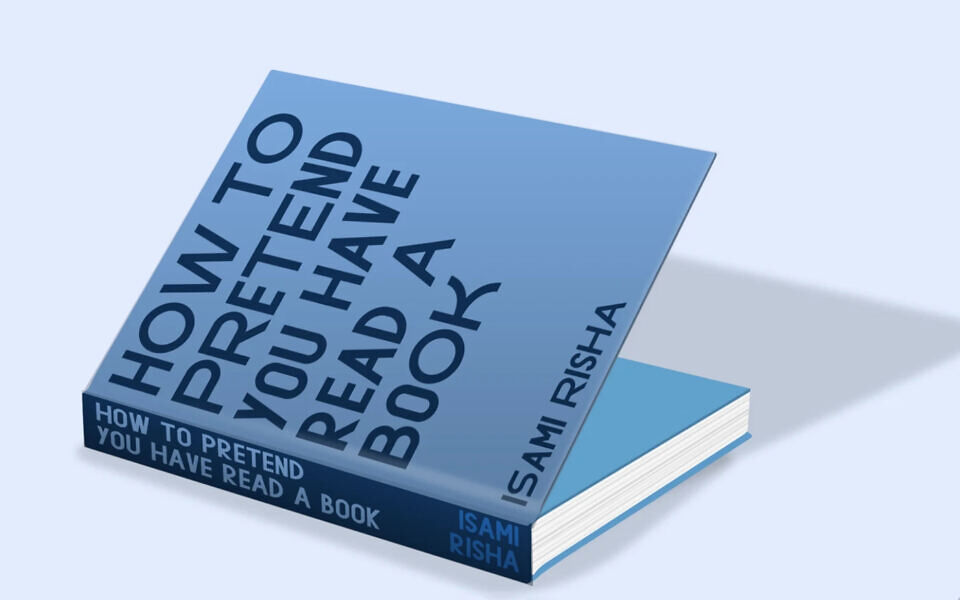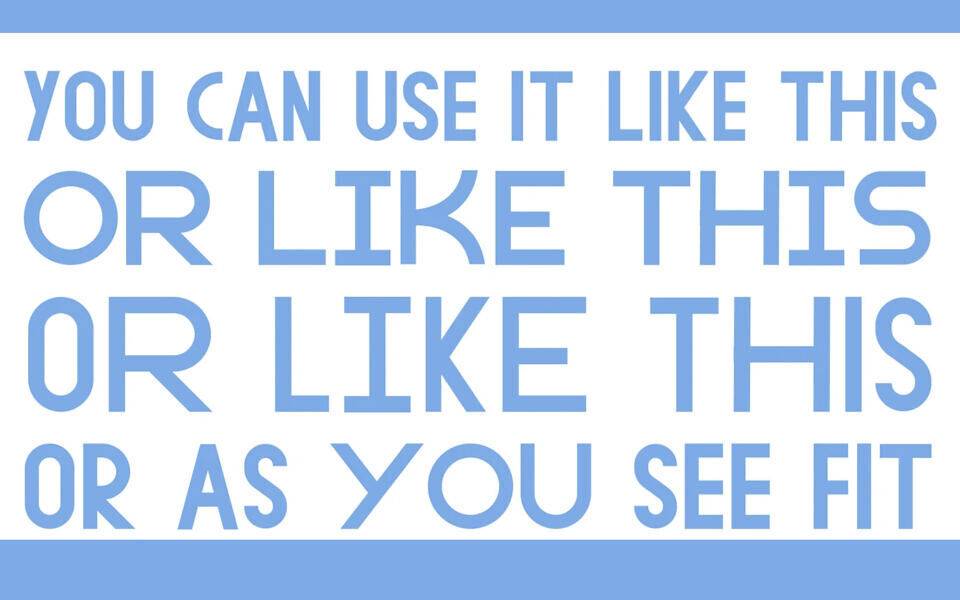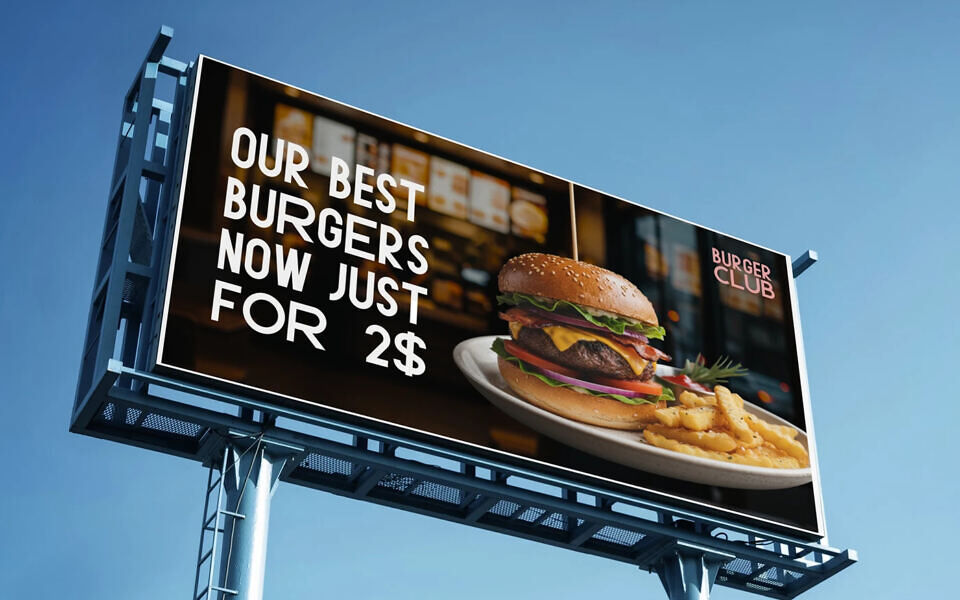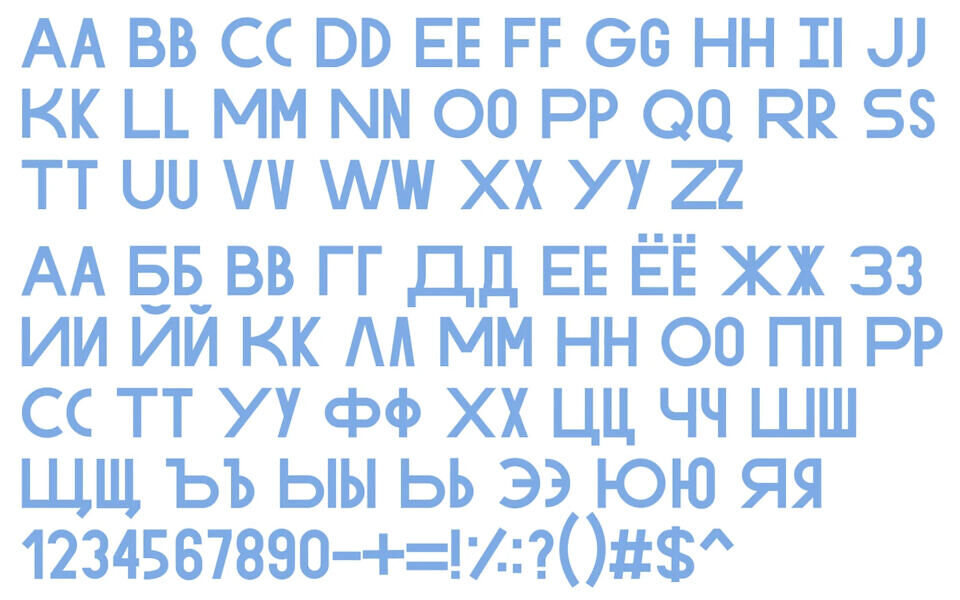
Risha Neo Font by Isami Risha is a sleek, neo-grotesque sans-serif typeface blending modern geometry with versatile boldness.
Featuring clean lines, uniform stroke weights, and extensive glyph support for Latin, Cyrillic, Greek, and symbols, it shines in advertising billboards, dynamic book covers, and stacked logos. Perfect for branding, editorial layouts, or digital projects, this freeform font adapts effortlessly to rotated, repeated, or oversized applications, delivering impactful, contemporary vibes.